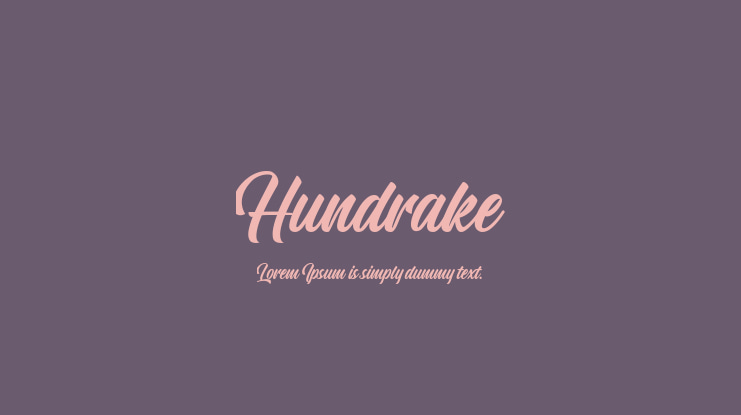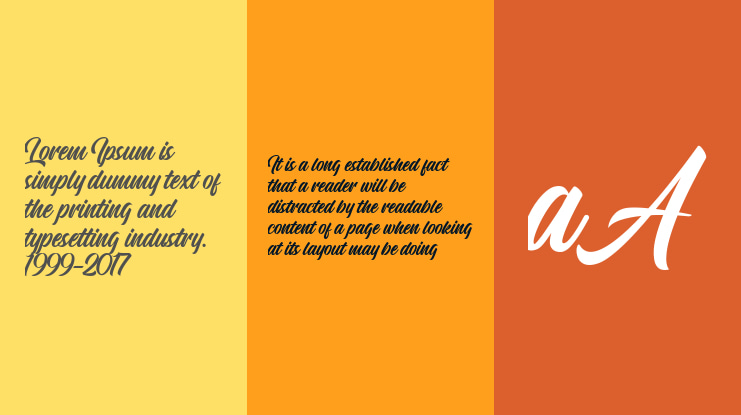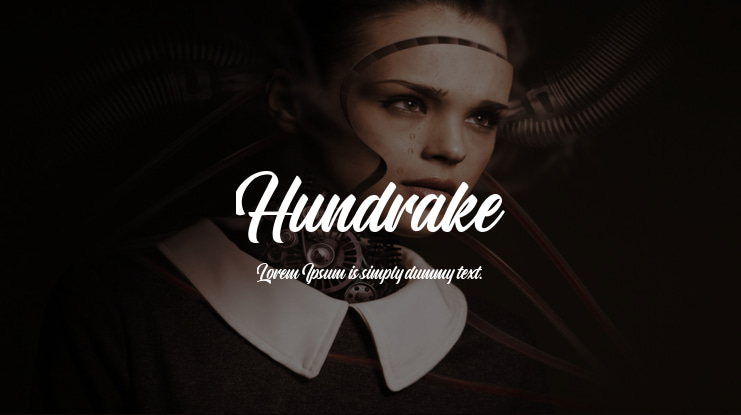
Hundrake Font
Hundrake is a Bold modern and stylish script font with strong characteristic. It's allowing you to create logotype, lettering craft, label and many other project with suitable purpose. Add it to your most creative ideas and notice how it makes them come alive!